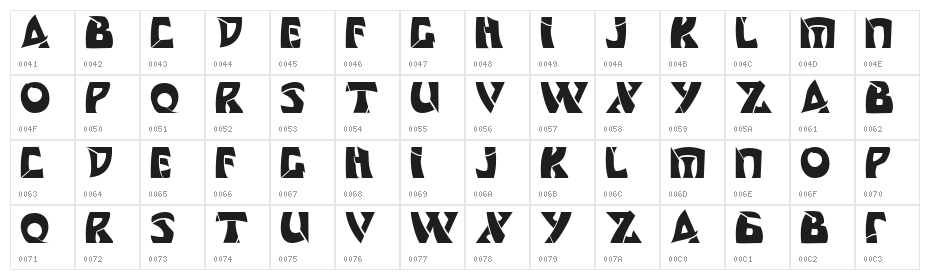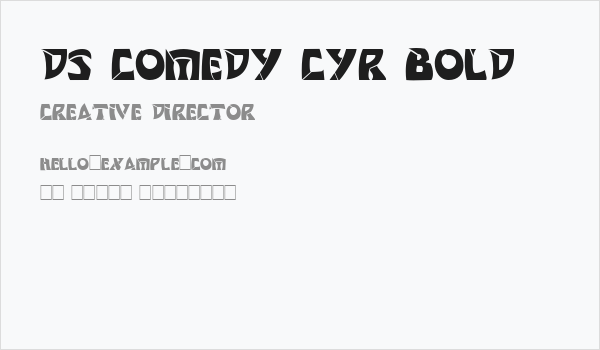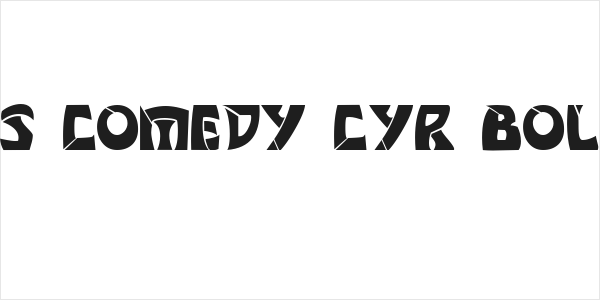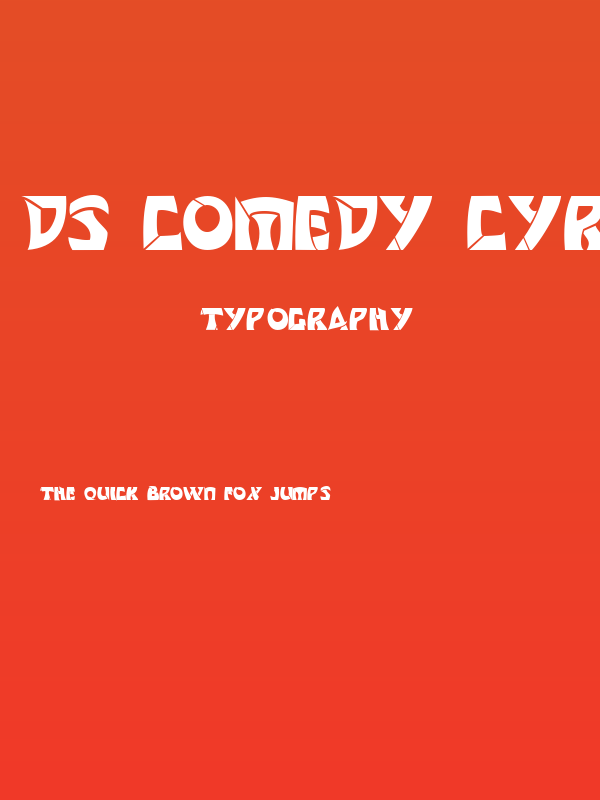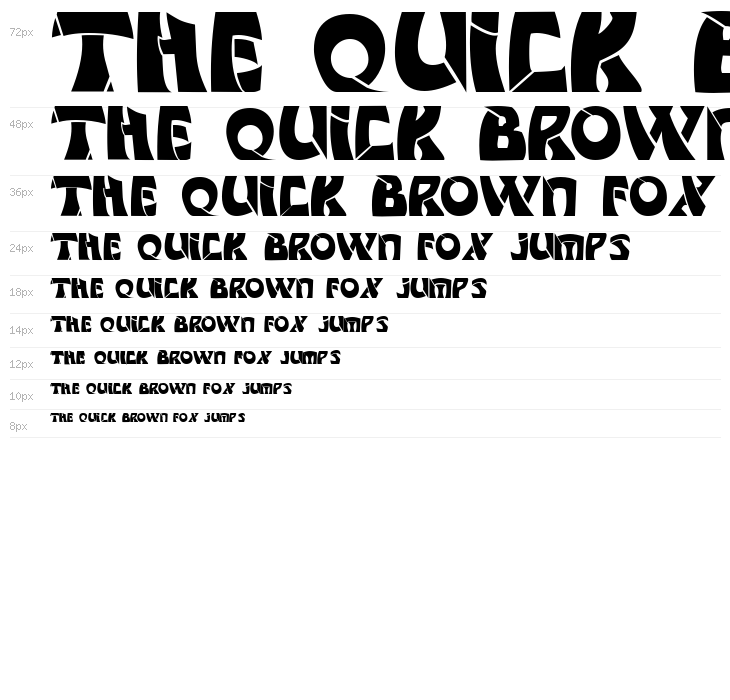
DS Comedy Cyr Bold Font
DS Comedy Cyr Bold Description
This bold and striking font features a highly decorative style with angular and geometric elements. Each character is designed with sharp edges and unique cutouts, creating a dynamic and eye-catching appearance. The boldness of the font enhances its visual impact, making it ideal for attention-grabbing headlines or titles. The uppercase letters are particularly distinctive, with a playful yet edgy aesthetic that suggests movement and energy. The font's design is reminiscent of modern art and abstract shapes, offering a creative and unconventional look.
| Proposed Projects | Ideal for posters, logos, album covers, and any project requiring a bold, artistic touch. |